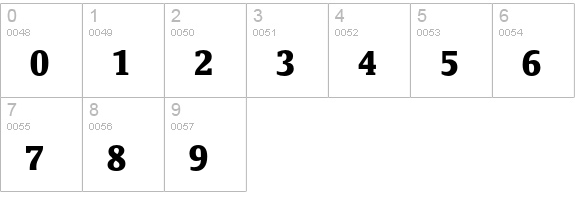
Oranda Bold Condensed Font Details
Oranda Bold Condensed is a strong, high-contrast, condensed-width variant in the Oranda typeface family \xE2\x80\x94 well suited to headlines, attention-grabbing titles, and strong calls-to-action.